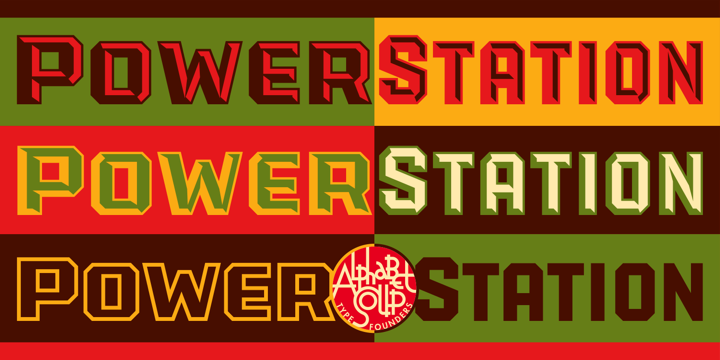
PowerStation
Originally conceived as part of a unique display design created for Hershey’s Times Square flagship store, the PowerStation family is the perfect choice when looking for a font that speaks of strength, solidity and character. It comes in two
• Designers: Michael Doret